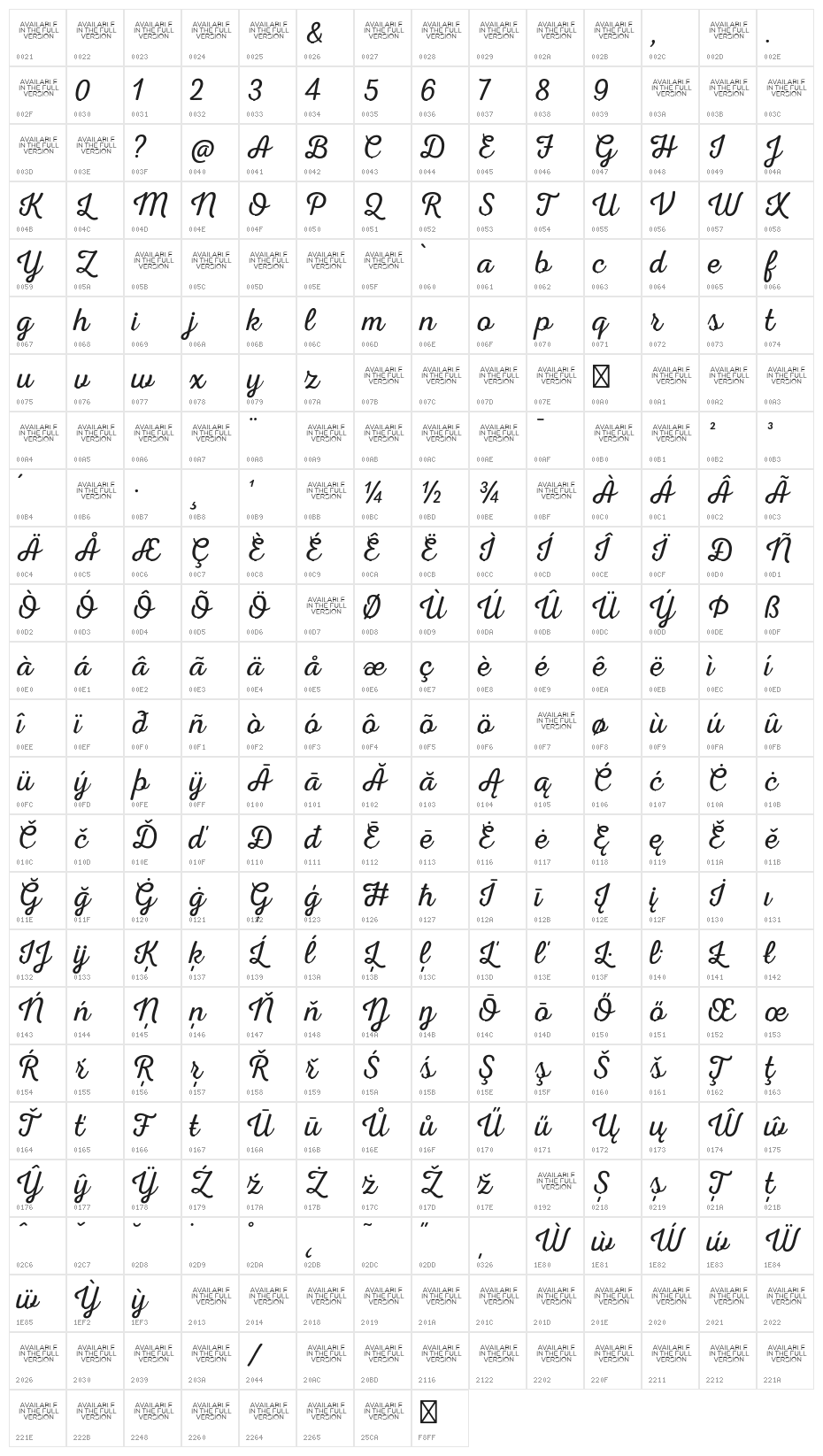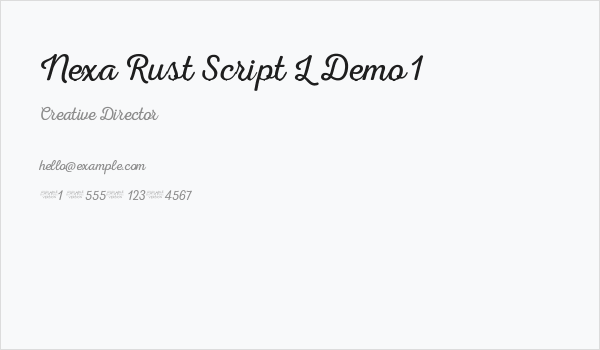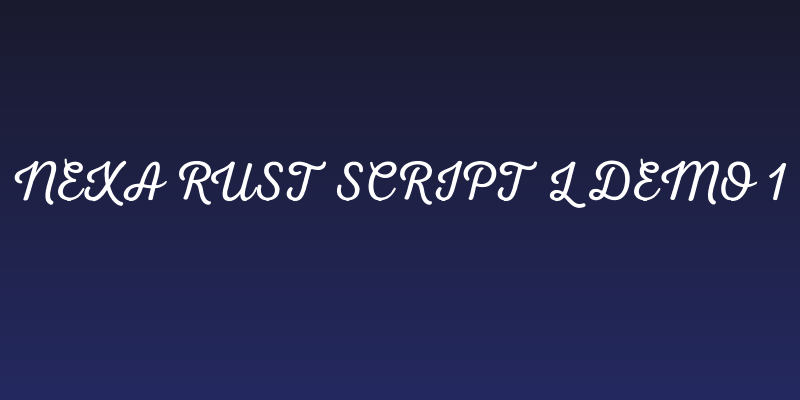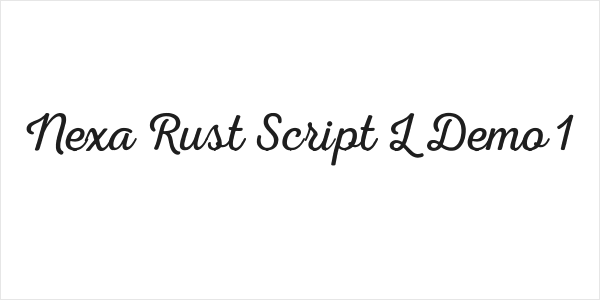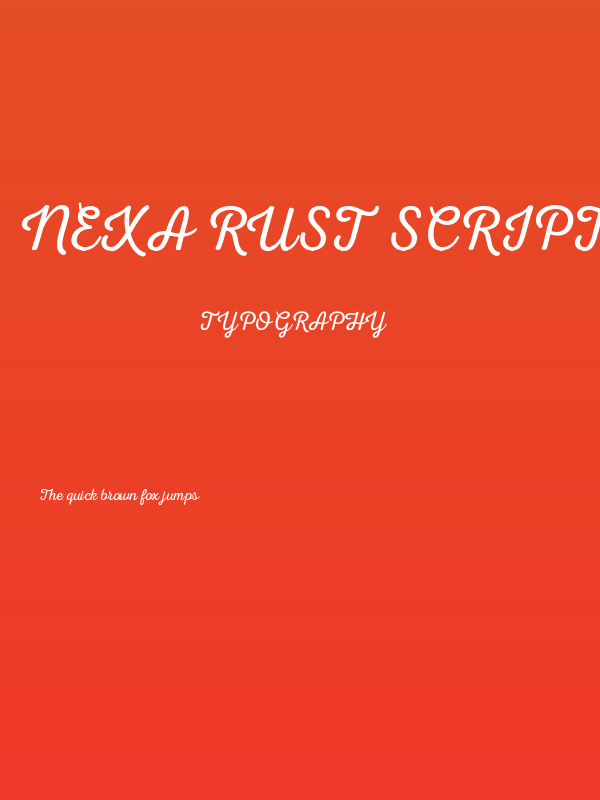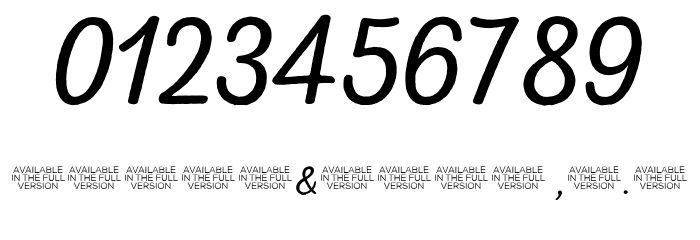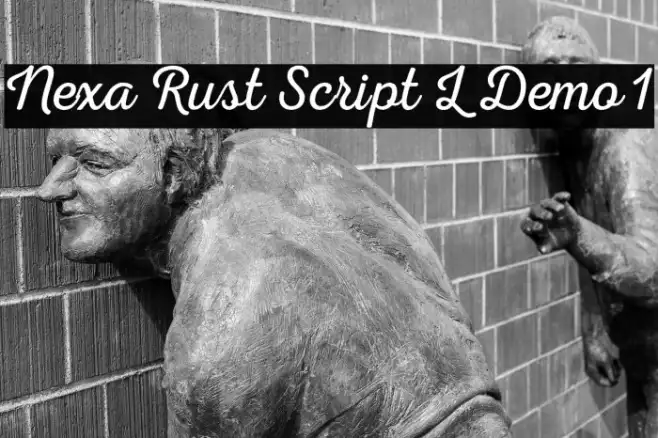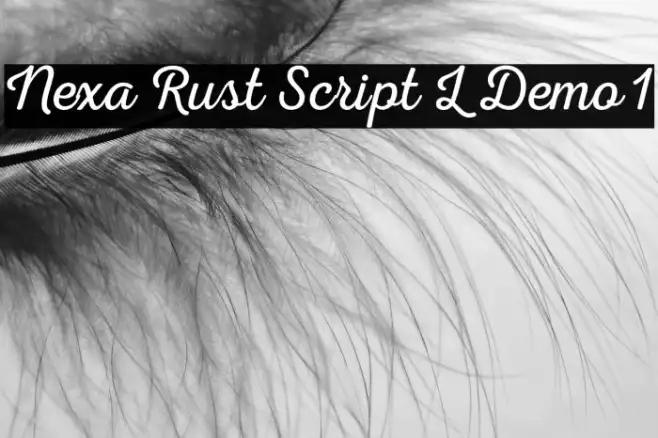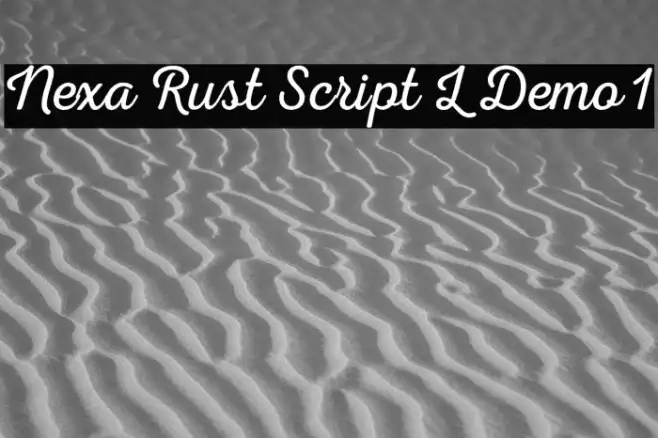
Nexa Rust Script L Demo 1 Font
Nexa Rust Script L Demo 1 Description
This font exudes a casual and friendly vibe with its smooth, flowing script style. The characters are connected, giving it a handwritten appearance that is both elegant and approachable. The uppercase letters maintain a consistent height, while the lowercase letters have a playful bounce, adding to its charm. The numerals are clear and easy to read, matching the overall style of the alphabet. Special characters are included, maintaining the same fluidity and style. This font is perfect for projects that require a personal touch, such as invitations, greeting cards, or branding for creative businesses.
| Overall Style | Casual, Elegant |
| Proposed Projects | Ideal for invitations, greeting cards, branding, and creative projects requiring a personal touch. |